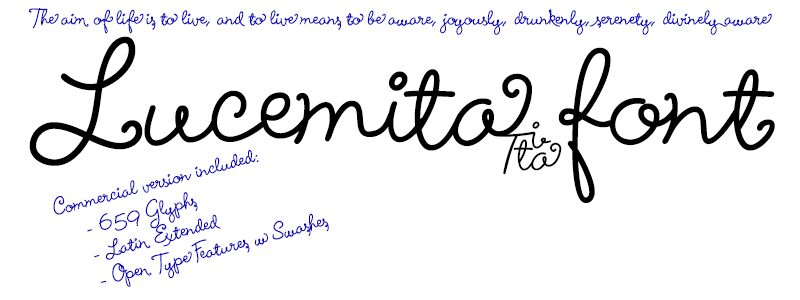
Handwritten font dedicated to my aunt Lucemita.
The commercial version contains 2 complete sets of capital letters for alternative titles and one lowercase letters for the end of words (Swashes) to create custom writing styles.
Lucemita
Lucemita is a handwritten typography with swashes and functions Open Type, Lucemita was also the family name of my auntie dearest, this typeface is dedicated to his memory.